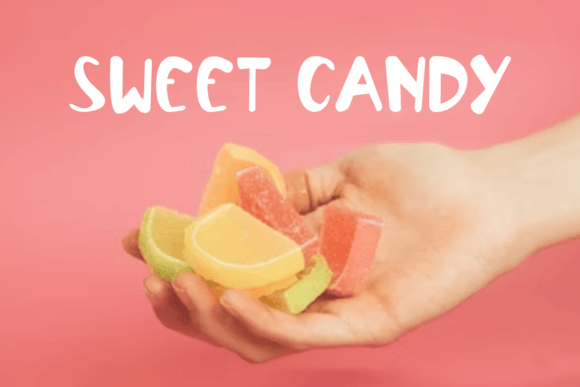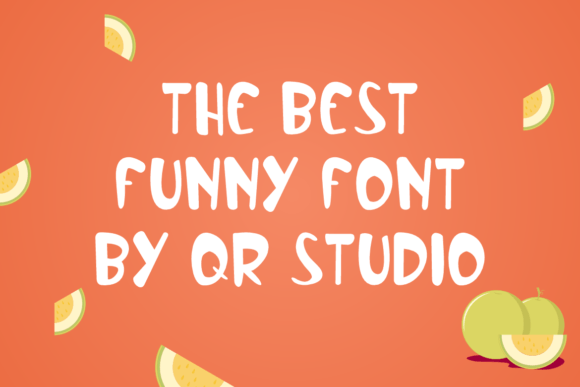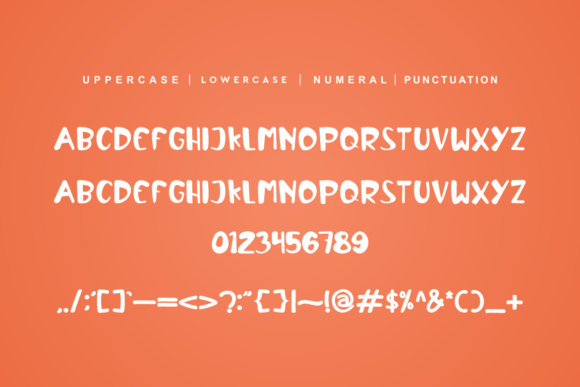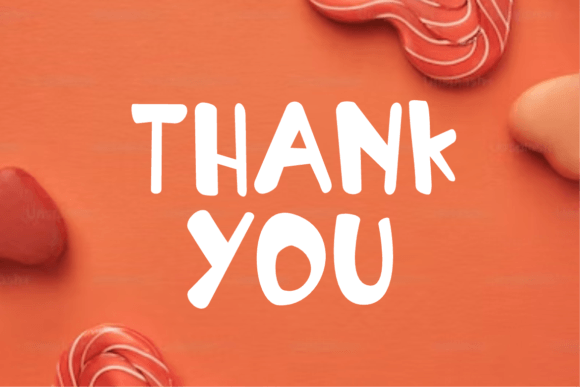
Candy Melon Font: The Sweetest Addition to Your Design Projects
Are you looking for a font that can add a touch of playfulness and fun to your design projects? Look no further than the Candy Melon Font! This bold and authentic display font is perfect for a wide range of applications, from logos and sports designs to decorations and social media graphics. In this article, we’ll take a closer look at the Candy Melon Font, its features, and how you can use it to elevate your design projects.
What is Candy Melon Font?
Candy Melon Font is a bold and authentic display font that is designed to make a statement. Its unique and playful design makes it perfect for projects that require a touch of fun and whimsy. The font is highly versatile and can be used for a wide range of applications, from branding and advertising to packaging and social media graphics.
Key Features of Candy Melon Font
So, what makes Candy Melon Font so special? Here are some of its key features:
- Bold and Authentic Design: The Candy Melon Font has a bold and authentic design that is sure to grab attention.
- Highly Versatile: The font is highly versatile and can be used for a wide range of applications, from logos and branding to social media graphics and decorations.
- Playful and Fun: The font has a playful and fun design that is perfect for projects that require a touch of whimsy.
- Easily Readable: Despite its bold design, the Candy Melon Font is easily readable, making it perfect for use in a wide range of applications.
How to Use Candy Melon Font in Your Design Projects
So, how can you use the Candy Melon Font in your design projects? Here are a few ideas to get you started:
- Logos and Branding: The Candy Melon Font is perfect for logos and branding projects that require a bold and attention-grabbing design.
- Sports Designs: The font’s playful and fun design makes it perfect for sports designs, such as jerseys, team logos, and more.
- Decorations: The Candy Melon Font can be used to create fun and playful decorations, such as party invitations, banners, and more.
- Social Media Graphics: The font is perfect for social media graphics, such as Facebook posts, Instagram stories, and more.
Why Choose Candy Melon Font?
So, why should you choose the Candy Melon Font for your design projects? Here are a few reasons:
- Unique Design: The Candy Melon Font has a unique and playful design that is sure to grab attention.
- Highly Versatile: The font is highly versatile and can be used for a wide range of applications.
- Easily Readable: Despite its bold design, the Candy Melon Font is easily readable, making it perfect for use in a wide range of applications.
- Perfect for Designers and Crafters: The font is perfect for designers and crafters who are looking for a fun and playful font to add to their design projects.
In conclusion, the Candy Melon Font is a bold and authentic display font that is perfect for a wide range of design projects. Its unique and playful design makes it perfect for projects that require a touch of fun and whimsy. With its highly versatile design, easily readable text, and perfect for designers and crafters, the Candy Melon Font is a great addition to any design project.
So, if you’re looking for a font that can add a touch of playfulness and fun to your design projects, be sure to check out the Candy Melon Font. With its bold and authentic design, highly versatile applications, and easily readable text, it’s the perfect font for designers and crafters alike.